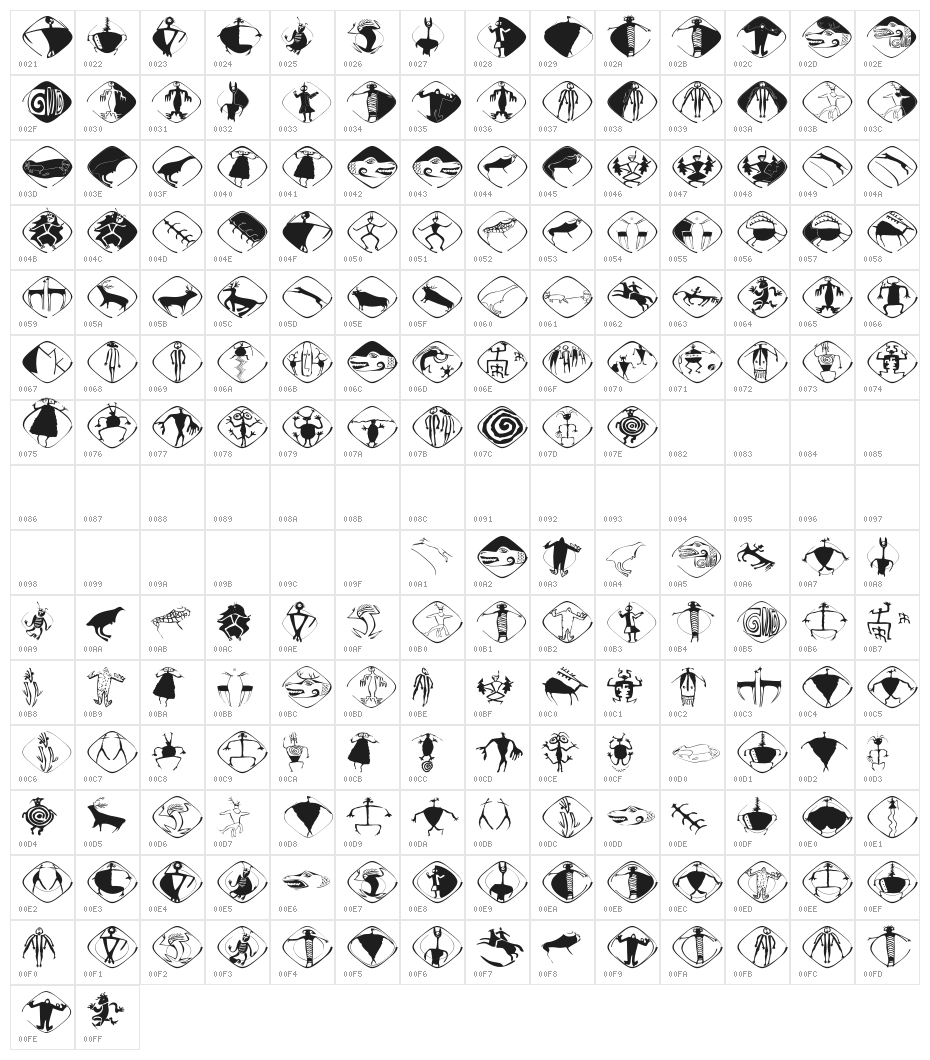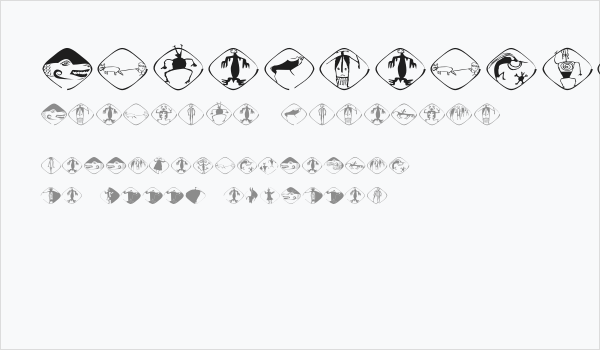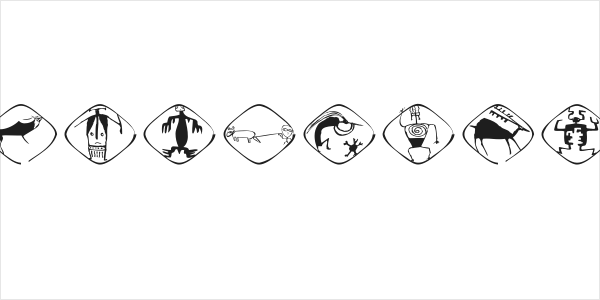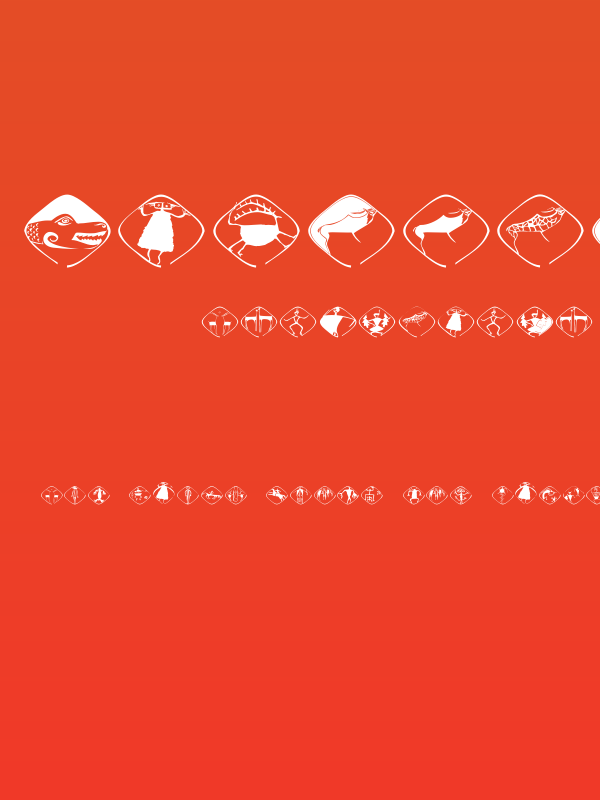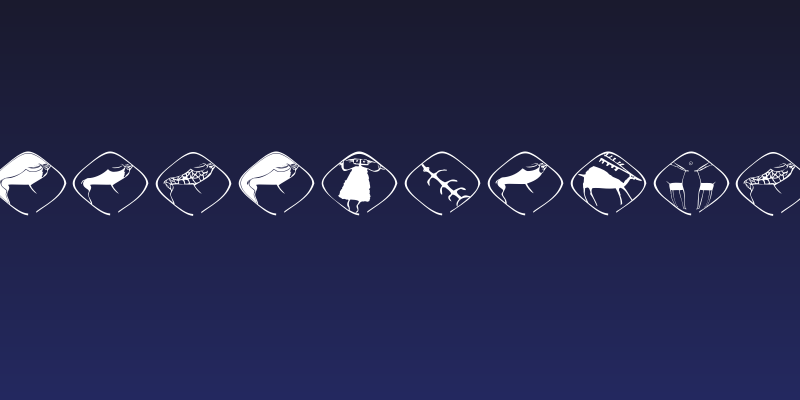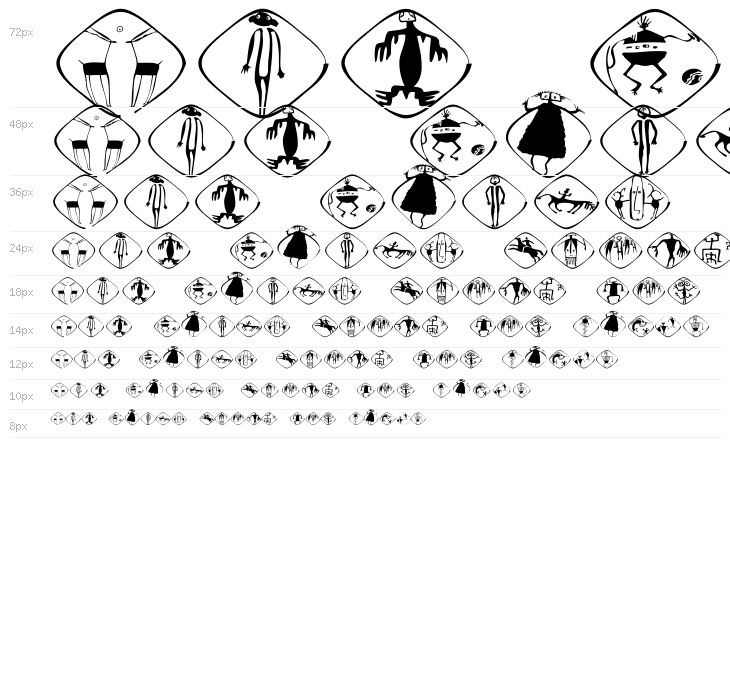
CaveDreamsXtreme Font
CaveDreamsXtreme Description
This set of symbols features a series of abstract, cave art-inspired designs enclosed within diamond shapes. Each character is a unique illustration, reminiscent of ancient petroglyphs, with a playful and imaginative twist. The designs are bold and expressive, utilizing a mix of solid black shapes and negative space to create intriguing figures. The overall aesthetic is whimsical and artistic, capturing a sense of mystery and creativity. These symbols are not traditional alphanumeric characters but rather a collection of artistic representations that evoke a sense of ancient storytelling and cultural heritage.
| Use Case | Logos, Artistic projects, Educational materials |
| Proposed Projects | Ideal for creative projects such as book covers, artistic posters, or branding for cultural events. These symbols can also be used in educational materials related to history or art. |